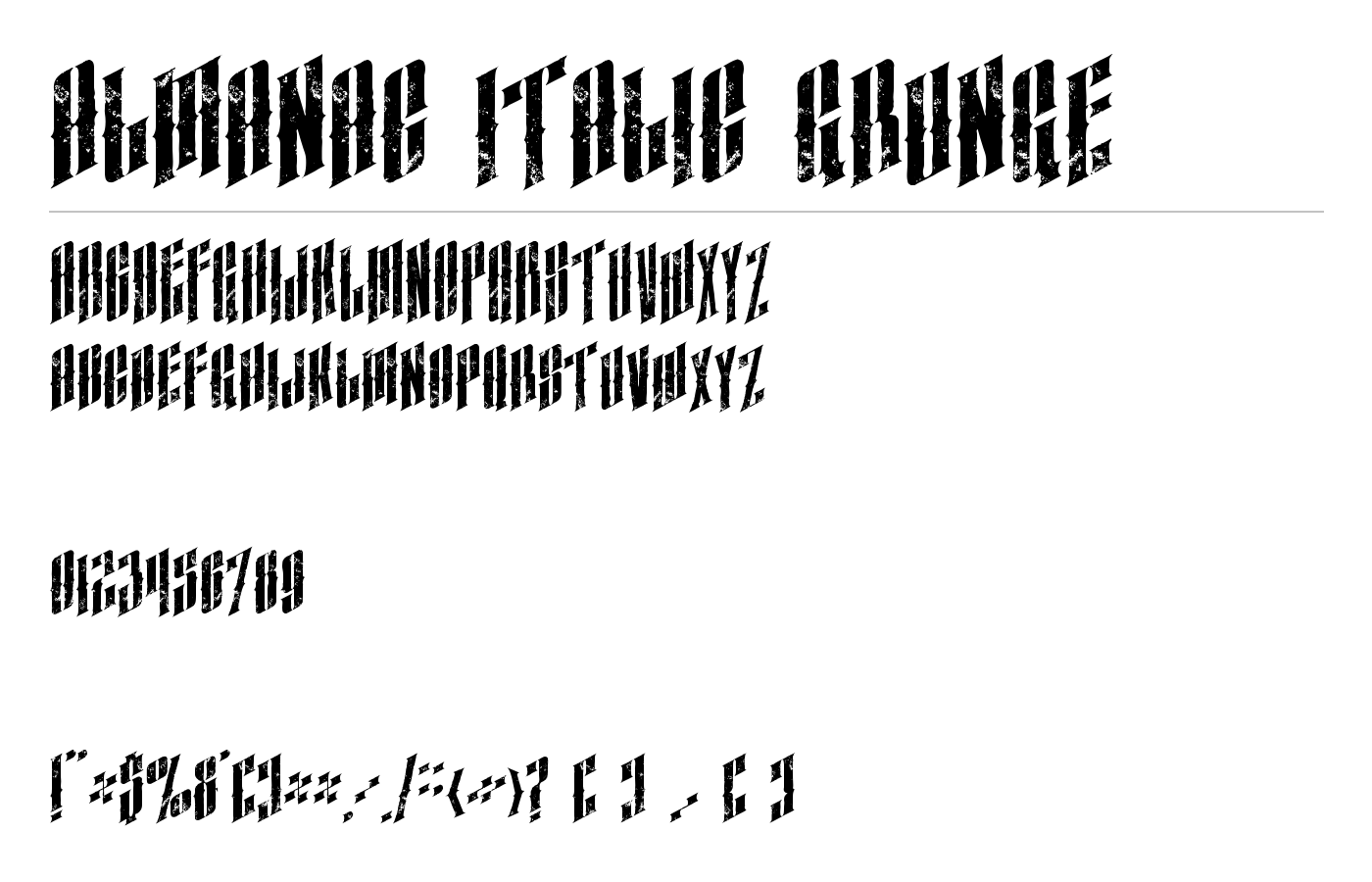
Almanac Italic Grunge is a bold, condensed blackletter-style font with a distressed, rough texture that gives it a vintage, edgy feel. Its sharp, angular strokes with italic slant create a dynamic and striking appearance, ideal for designs needing a rebellious or alternative vibe. This font works best for bold headlines, posters, and branding that wants to capture attention with a grungy, urban character.
About almanac italic grunge Font